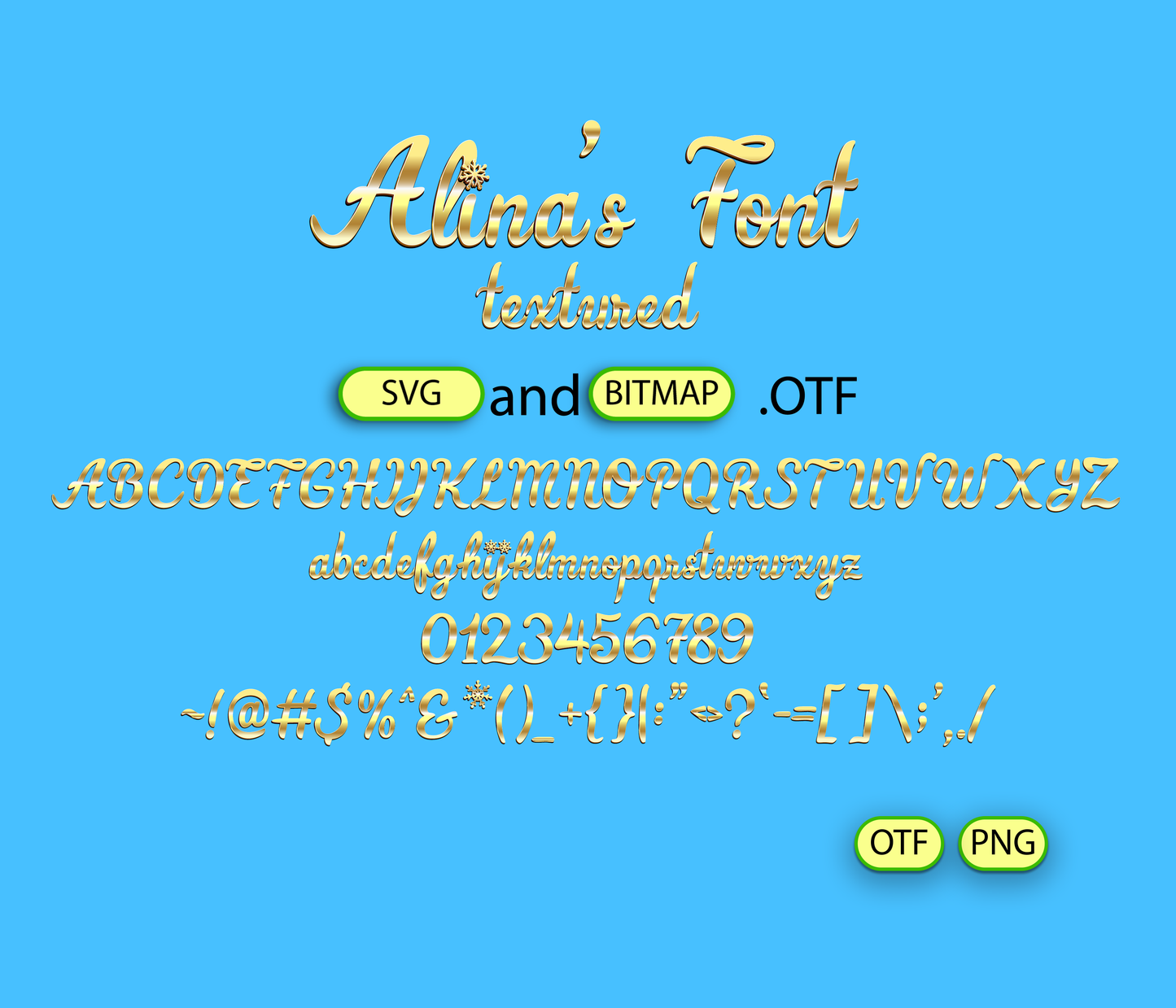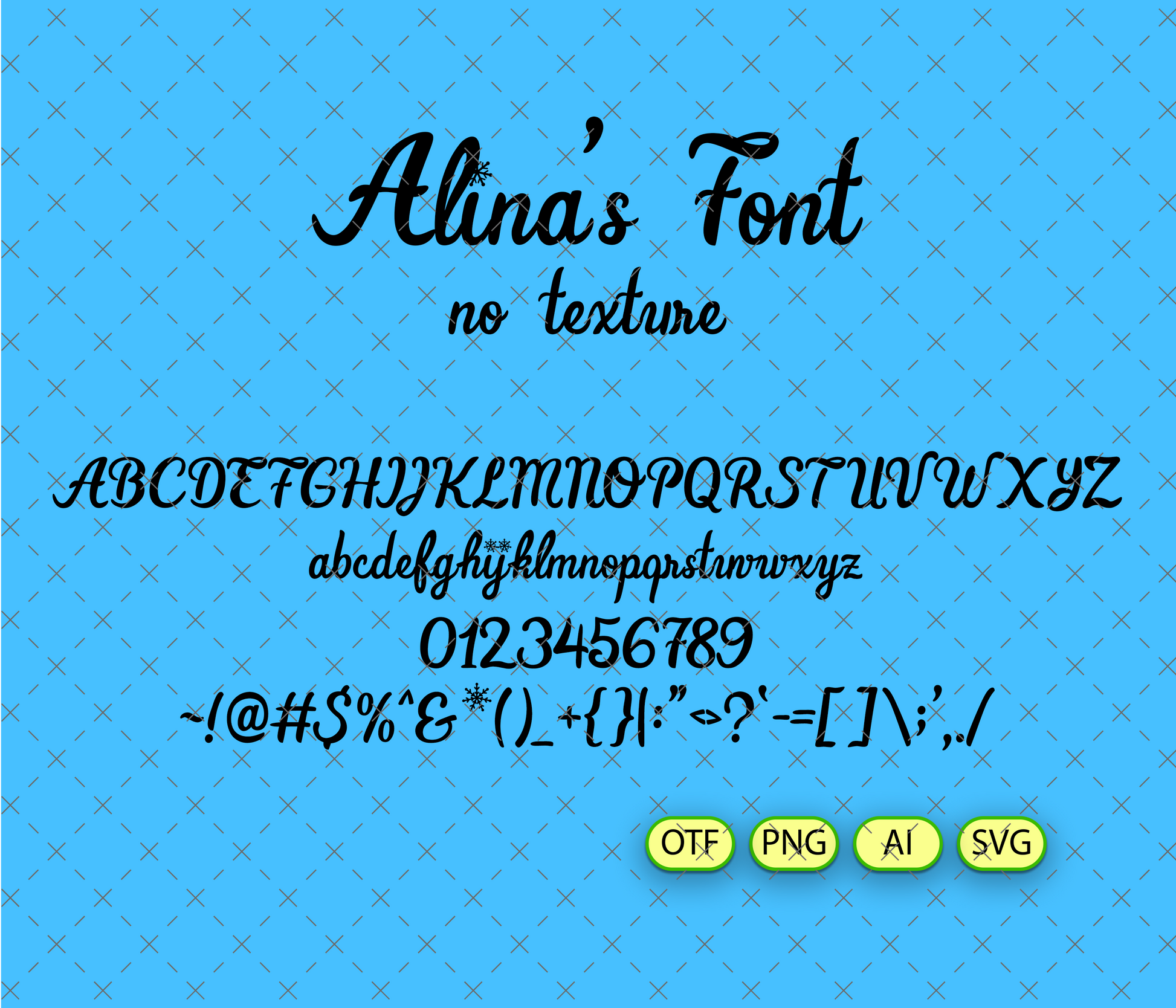
Elegant Christmas Font Textured
Elegant Christmas Font Calligraphy
Step into the luxurious world of sophisticated holiday celebrations with our Elegant Christmas Font Calligraphy, capturing the essence of refined festive cheer and graceful seasonal traditions. Perfect for holiday crafters, sublimation designers, small business owners, and creative professionals, this font brings the exquisite, flowing spirit of calligraphic Christmas to your projects. Create heartwarming greeting cards, merchandise, or digital content with the graceful energy of the holiday season.
Festive Multicolor Typography for Holiday Crafts & Seasonal Design
Our Elegant Christmas Font Calligraphy features vibrant, flowing letterforms with holiday-themed textures reflecting the world of luxurious decorations and refined seasonal joy.
Our font pays tribute to the iconic world of refined holiday traditions and sophisticated festive design, empowering your projects with its graceful and luxurious spirit. Whether crafting seasonal materials, designing Christmas products, or adding an elegant touch to personal projects, this font communicates the heartwarming essence of calligraphic holiday magic. Ready to inject elegant Christmas cheer into your creations? This font is your key to sophisticated, impactful design.